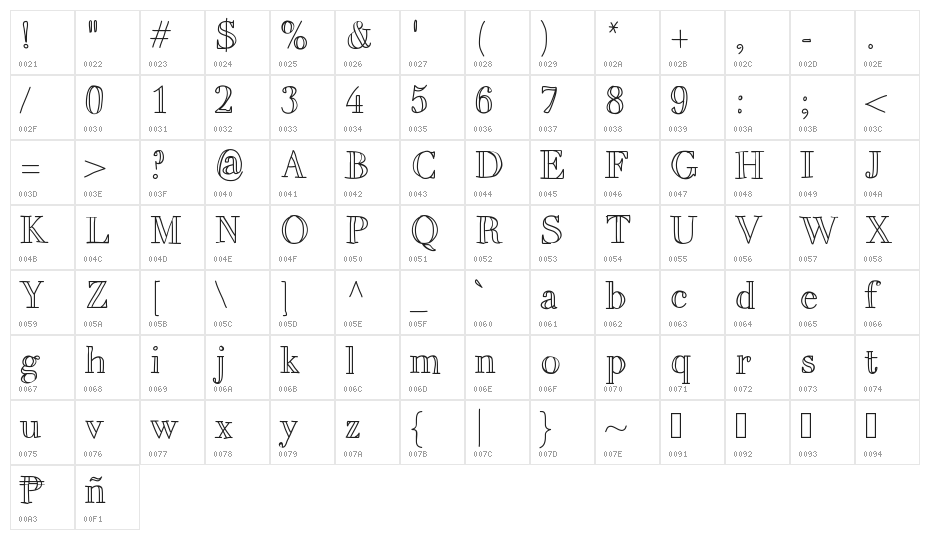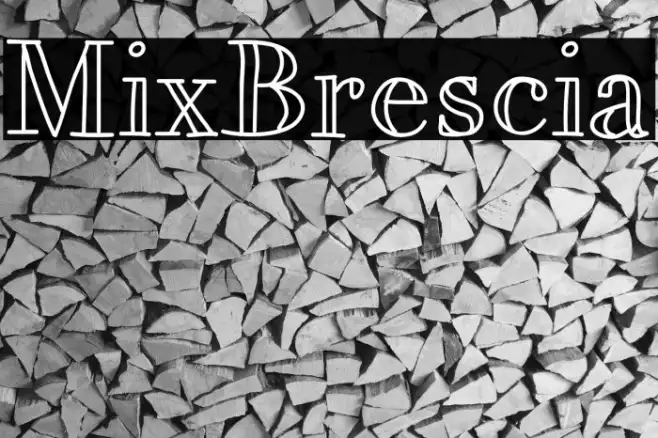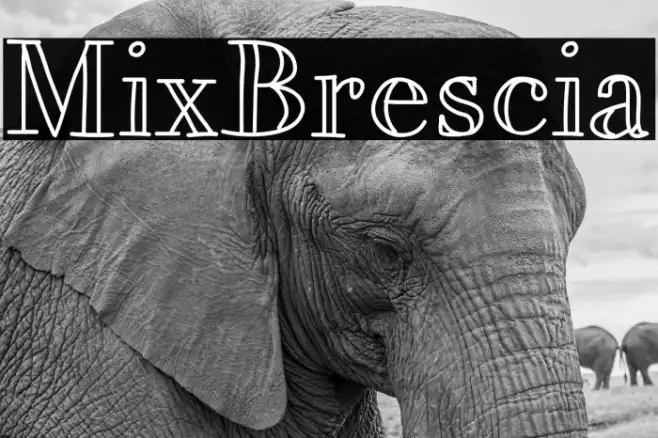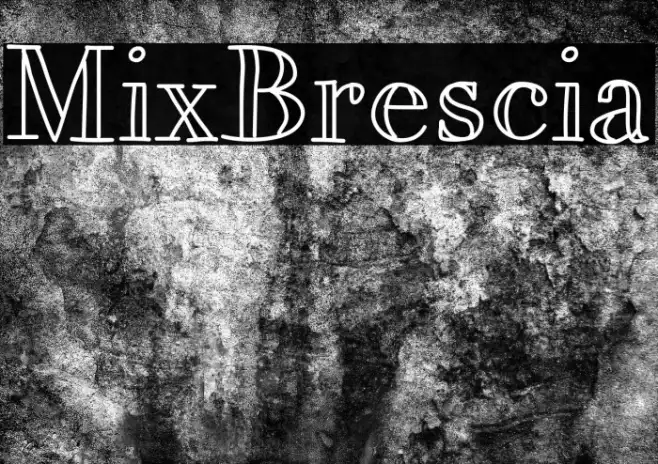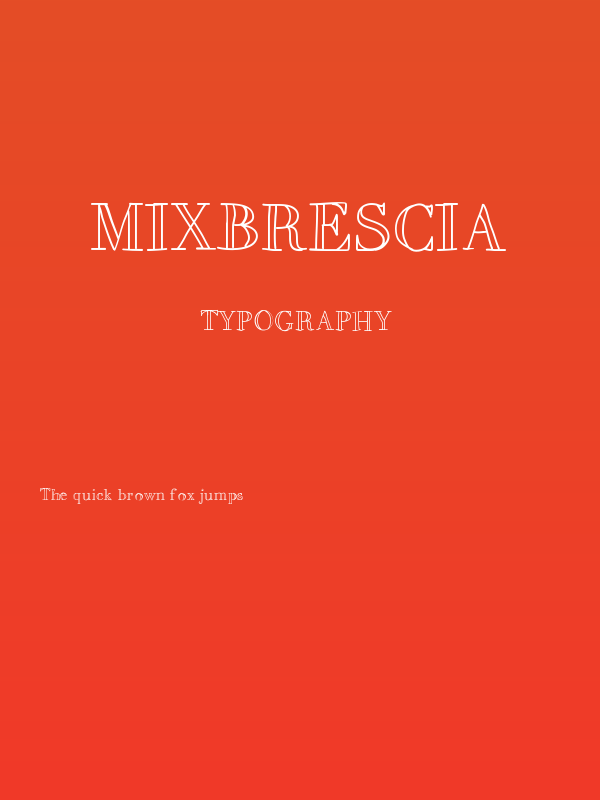
MixBrescia Font
MixBrescia Description
This font features a unique blend of classic and modern elements, characterized by its elegant serif design. The uppercase letters are tall and slightly narrow, with distinct serifs that add a touch of sophistication. The lowercase letters maintain a consistent style, with rounded forms and subtle curves that enhance readability. Numbers are bold and clear, making them suitable for various applications. Special characters are well-integrated, maintaining the overall aesthetic of the font. The stroke contrast is medium, providing a balanced appearance that is neither too bold nor too light. This font is versatile, suitable for both formal and creative projects, offering a timeless appeal.